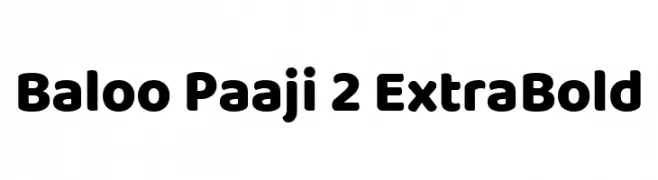
A playful, rounded, and modern sans-serif font with smooth curves.
A playful, rounded font with bold, smooth curves and a friendly appearance.
A bold, rounded font with smooth curves and a friendly appearance.
A playful, rounded font with a modern and friendly appearance.
A bold, rounded, and playful font with a modern and friendly style.
A playful, rounded font with smooth curves and a friendly appearance.